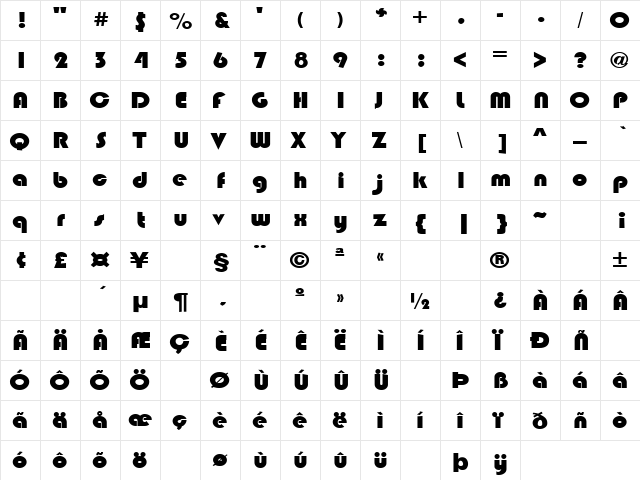
Smoke 5 Regular
Smoke 5 offers clean, dependable letterforms without strong stylistic allegiance, making it a practical choice for designers who need flexibility.